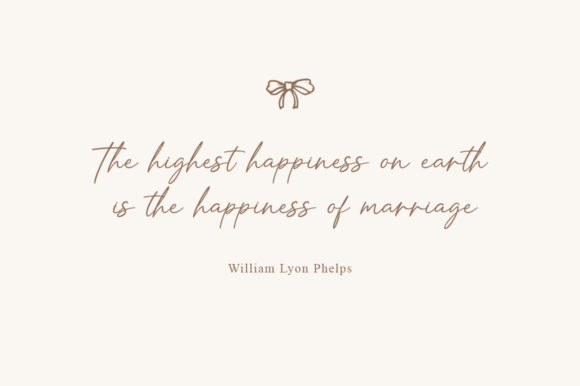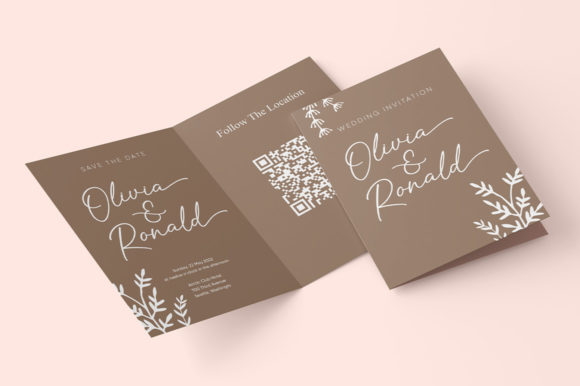
Sarah & James Font
db-ku.com - Script & Handwritten -- Sarah & James is a thin lettered and graceful script font. Fall for its ravishing style and use it to create gorgeous designs. This font is PUA encoded which means you can access all glyphs and swashes with ease!